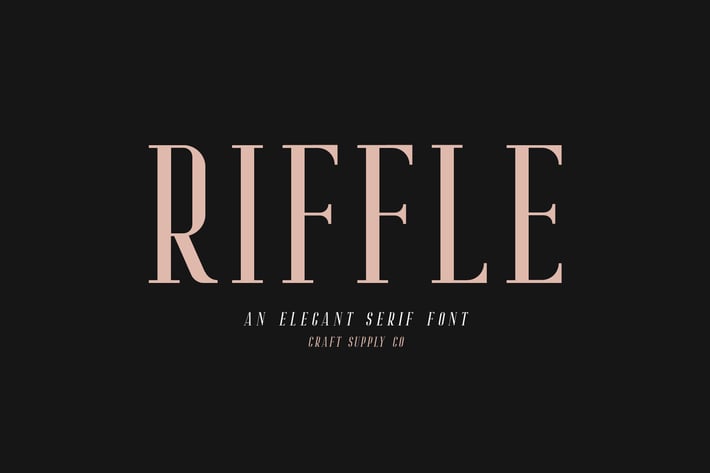
Riffle Font Family
Riffle Font Family is an elegant serif font family whose design refers us to the style of transitional serifs. The distinctive features of Riffle Font Family are the relatively low contrast of strokes, the slightly squarish shapes of round characters and the emphasized businesslike nature.
Riffle Font Family has been crafted from scratch with a structural logic of its own: a fusion of pure geometry and optical balance. By combining a variety of styles Riffle Font Family is suitable for Logo, greeting cards, quotes, posters, branding, name card, stationary, design title, blog header, art quote, typography
Riffle Font Family also suitable for art, modern envelope lettering or book design, happening style like handdrawn design or watercolor design theme, craft design, any DIY project, book title, wedding font, pop vintage design, or any purpose to make our art/design project look pretty and trendy.